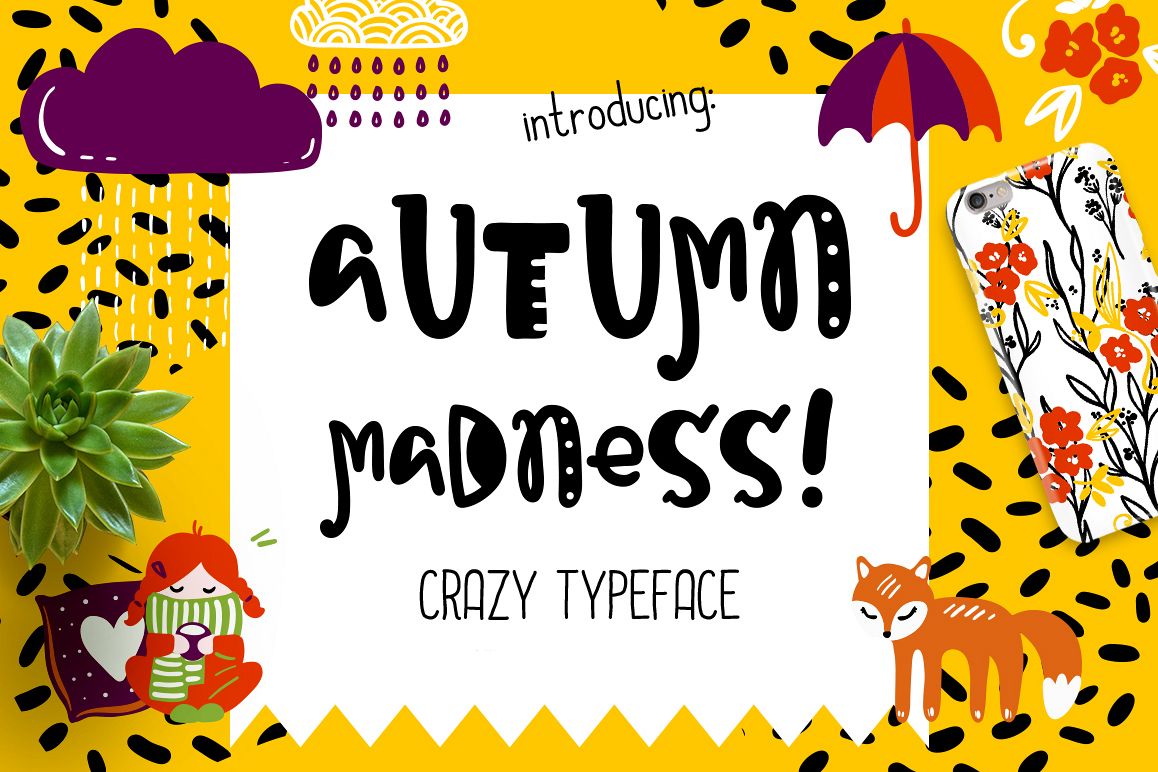
Autumn Madness Typeface
Autumn Madness
Autumn Madness Typeface! This funny font is perfect for cards, prints, logos, arrange illustration and decoration. It has letters, numbers, special characters and accents.